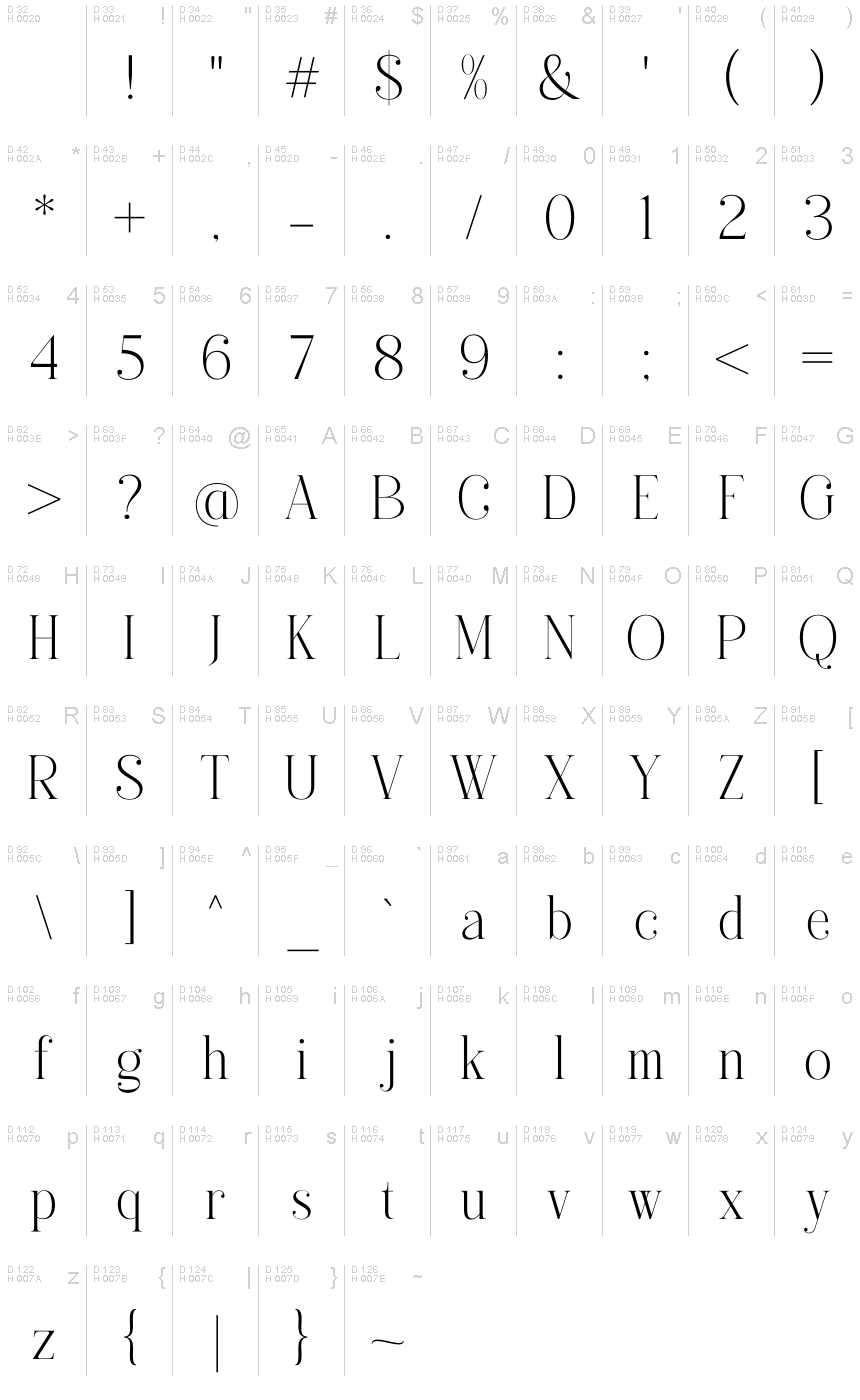
Sanfterd
Sanfterd font, designed by Storytype Studio, embodies an exquisite blend of elegance and modernity. This distinguished serif font captivates with its graceful curves and pronounced arches, offering a refined aesthetic appeal that stands out in any design context. Its light strokes create a sense of delicacy, while the strikingly bold elements add depth and emphasis where needed.
Ideal for branding, editorial work, or elegant invitations, Sanfterd effortlessly communicates sophistication and warmth. Whether used for headlines or body text, it maintains clarity and charm across various mediums. In summary, Sanfterd is more than just a typeface; it's a visual experience that enhances the narrative of any project it graces.